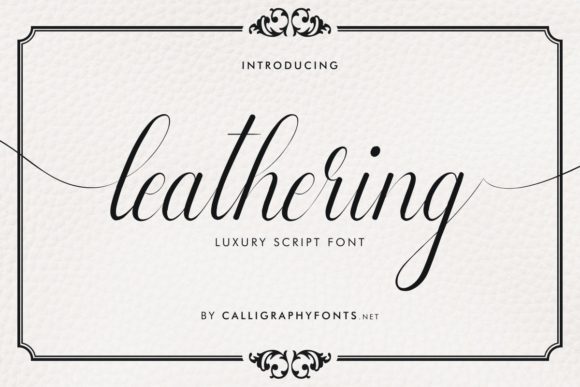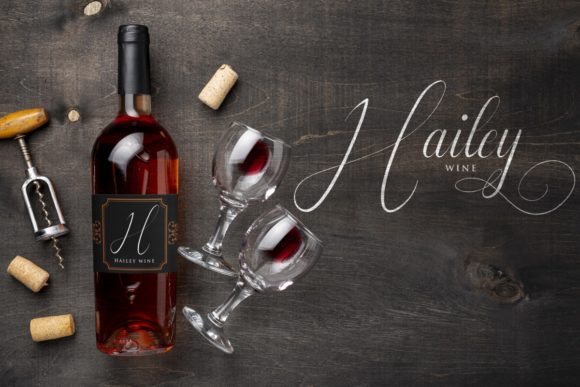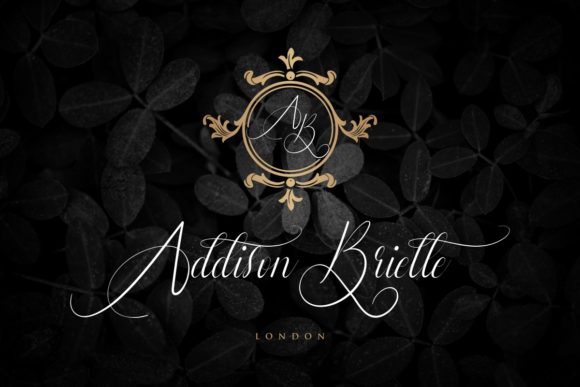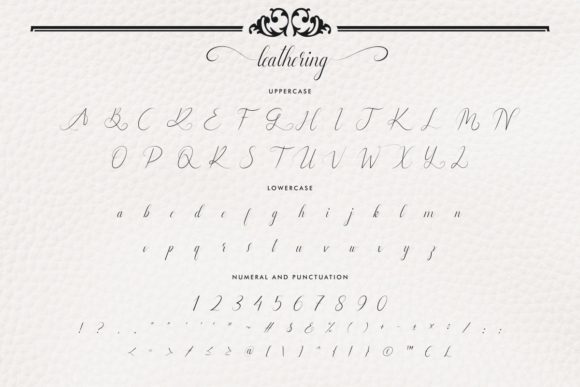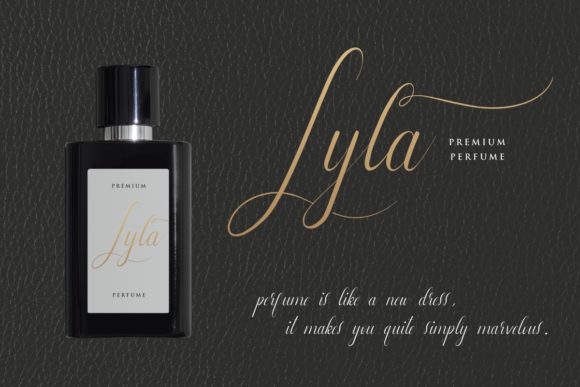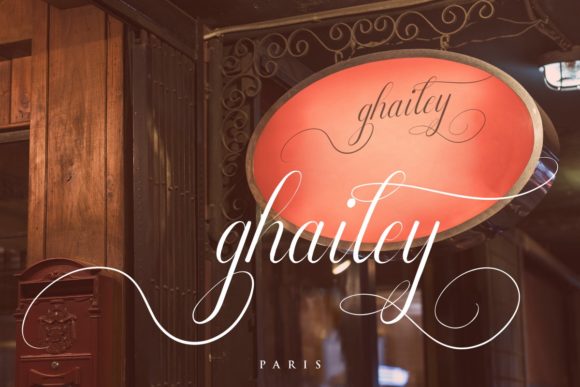
Introduction to Leathering Font
Leathering is an elegant and sophisticated script font, ideal for your most favorite projects.
Fall in love with its unique and distinct style and create breathtaking wedding invitations, birthday cards and more This font is PUA encoded which means you can access all of the glyphs and swashes with ease.
Key Features of Leathering Font
Why Choose Leathering Font?
Leathering Font offers exceptional quality and versatility, making it a valuable addition to your design toolkit. Whether you’re creating for personal projects or commercial use, Leathering Font delivers professional results.